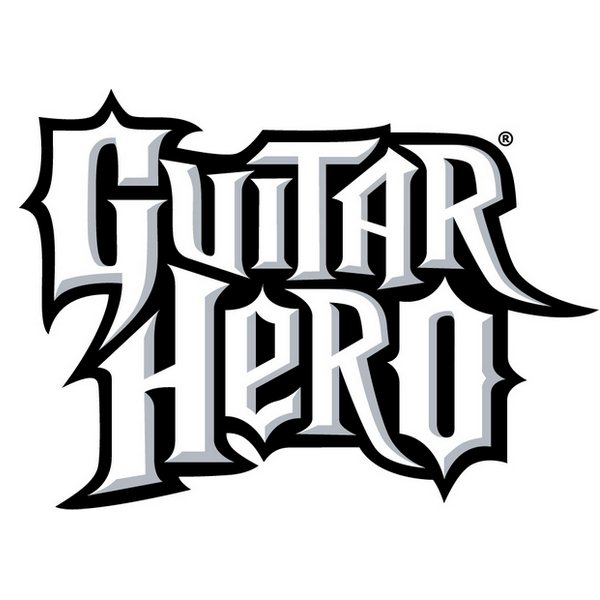
Guitar Hero Font
The Guitar Hero logo has a sharp, heavy metal-inspired design with a font similar to Nightmare Hero by n3o. It's available in uppercase and lowercase letters, with limited punctuation and accented characters. You can download the font for free from the Fonts Used Section.